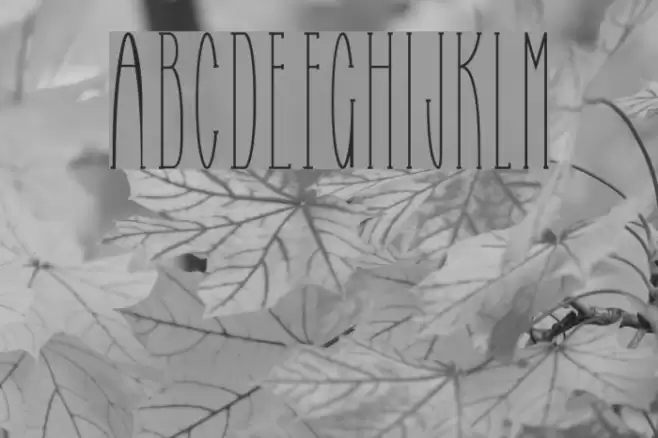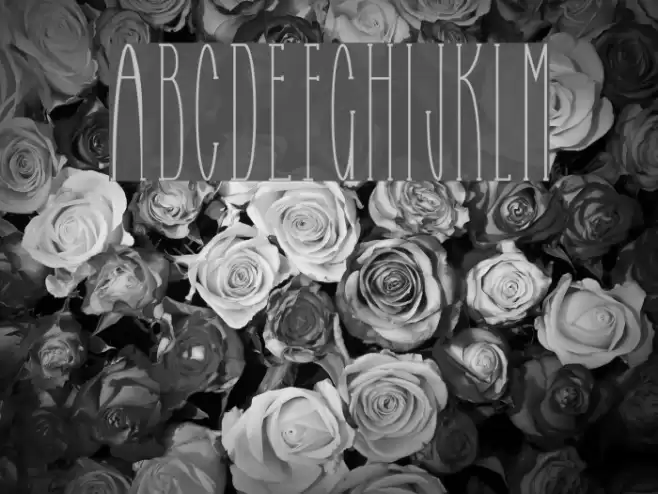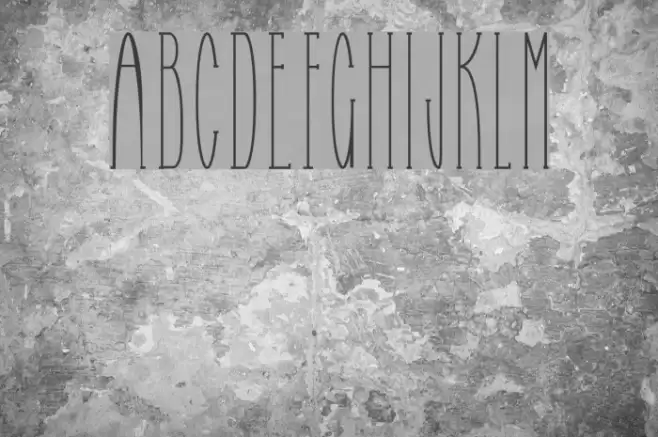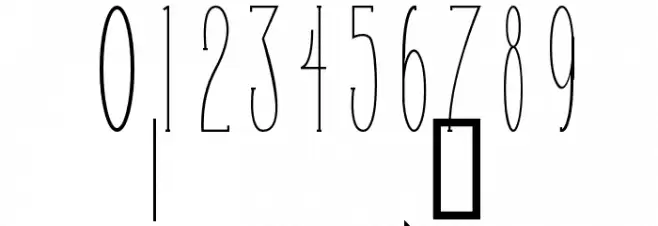
Selfish Bitch Normal Font
Selfish Bitch Normal Description
This font features an elongated and narrow design, characterized by its tall and slender letterforms. The uppercase letters exhibit a unique blend of sharp angles and smooth curves, giving it a distinct and modern appearance. The lowercase letters maintain the same narrow structure, with some characters like 'g' and 'y' having playful, extended descenders. The numerals are consistent with the overall style, maintaining the elongated form. Special characters are designed to match the font's aesthetic, ensuring a cohesive look across all glyphs. This font's high contrast in stroke thickness adds to its striking visual impact.
A tall, narrow font with high contrast and modern appeal from Uncategorized fonts.
- Proposed Projects: Ideal for fashion magazines, luxury branding, and editorial headlines.